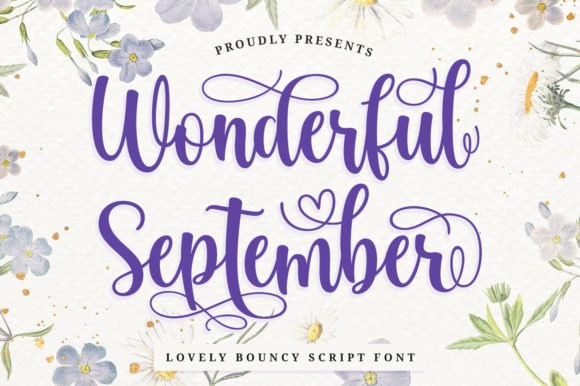
Wonderful September Font
Wonderful September Font is a lovely script font featuring charming, playful characters that seem to dance along the baseline. This font is PUA encoded which means you can access all of the glyphs and swashes with ease!